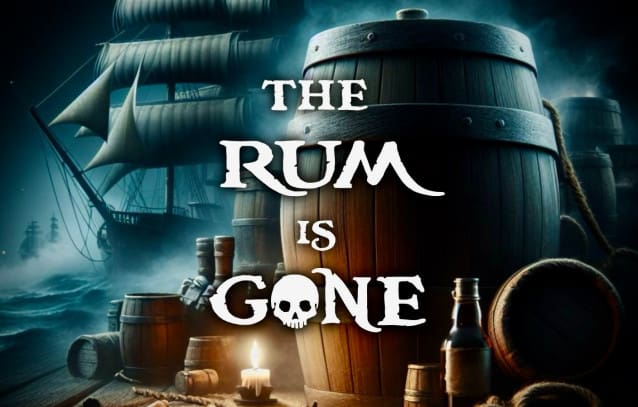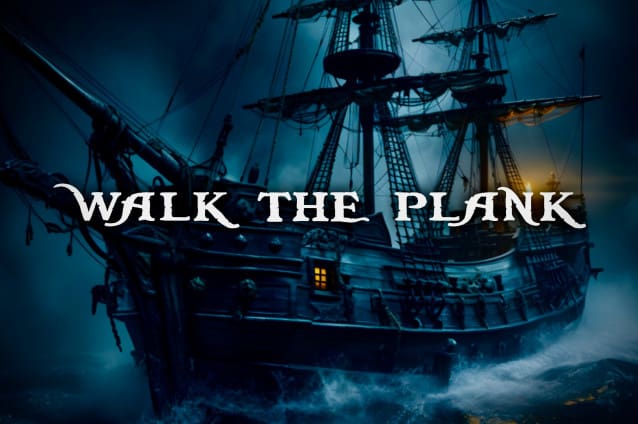
The Rum Is Gone Font
The Rum Is Gone Font, is a funny, pirate font that consists of uppercase, lowercase, numbers, special characters and Greek.
One of my very first fonts was a pirate-themed one, inspired by “Pirates of the Caribbean”. Back then I didn’t know much about font-making, so every now and then I revisit that old font and create something new.